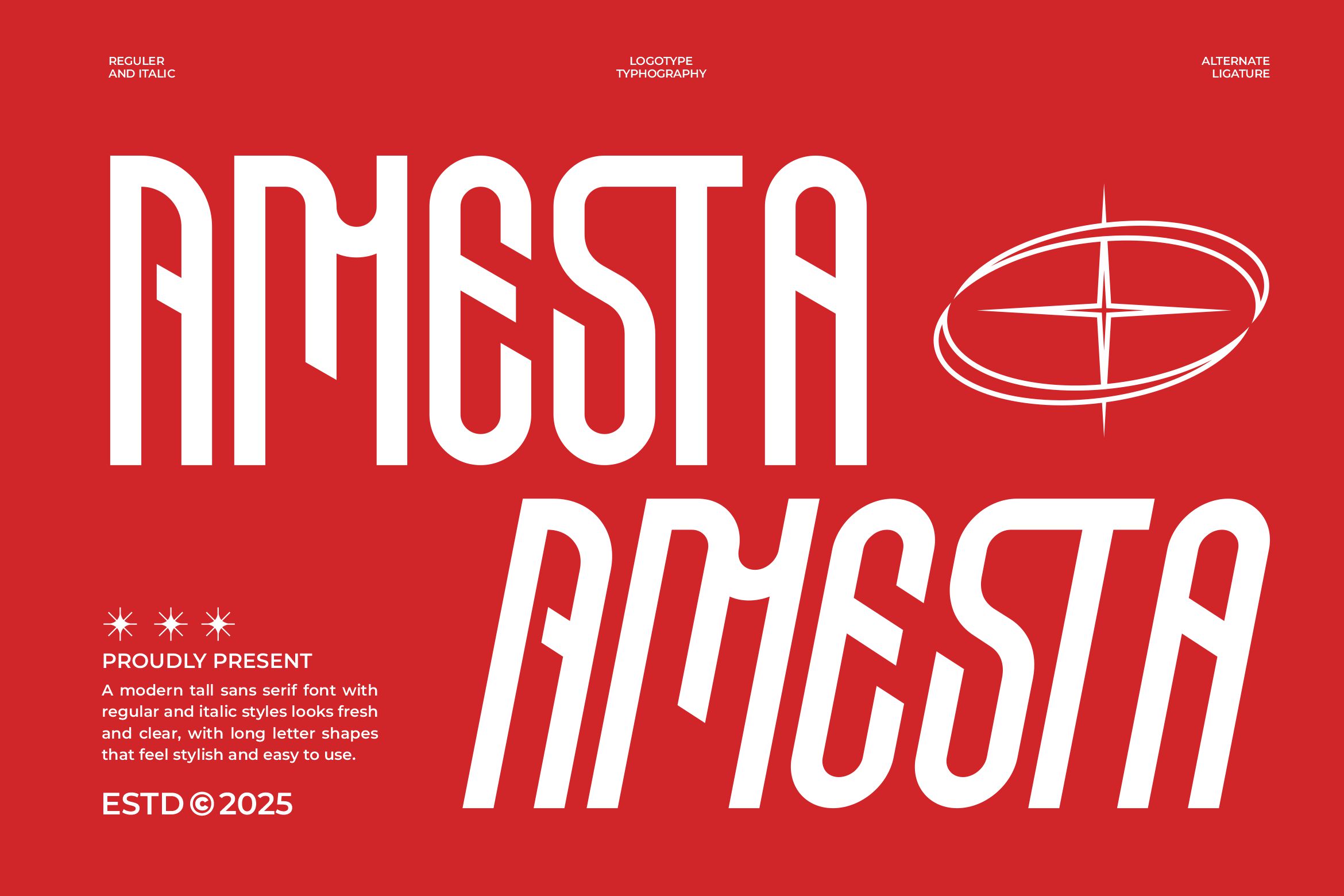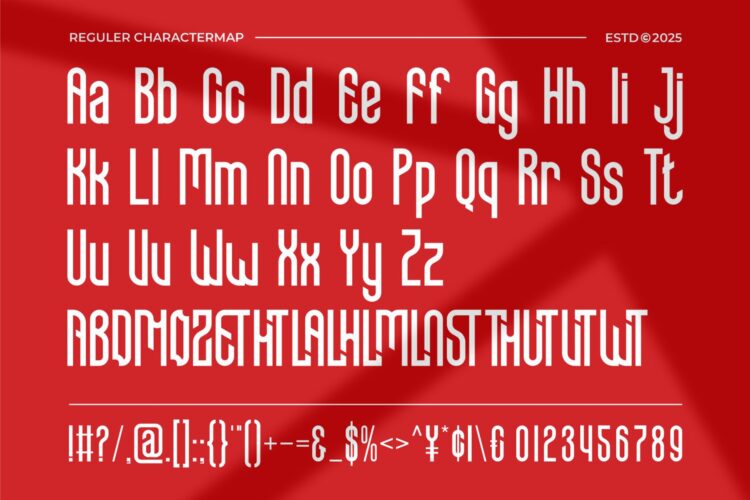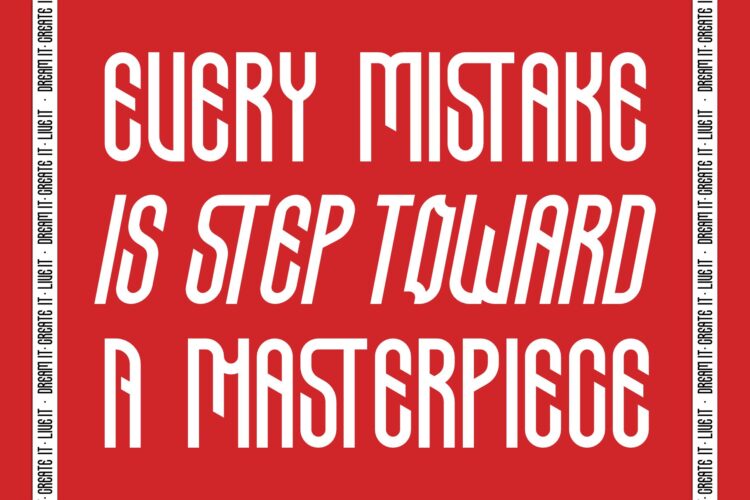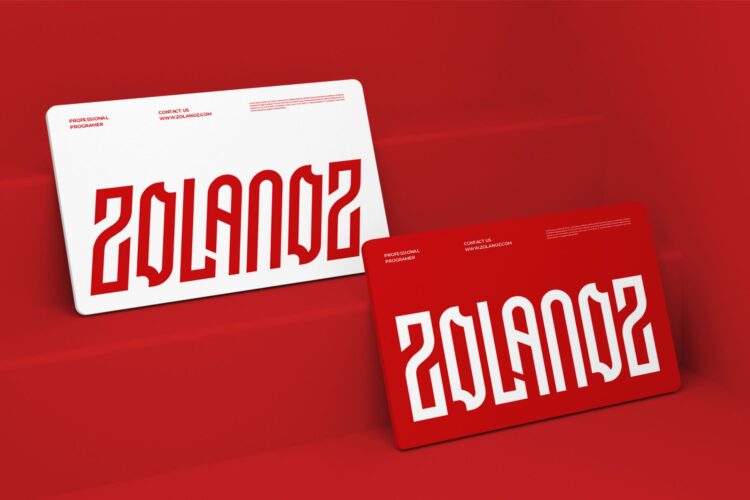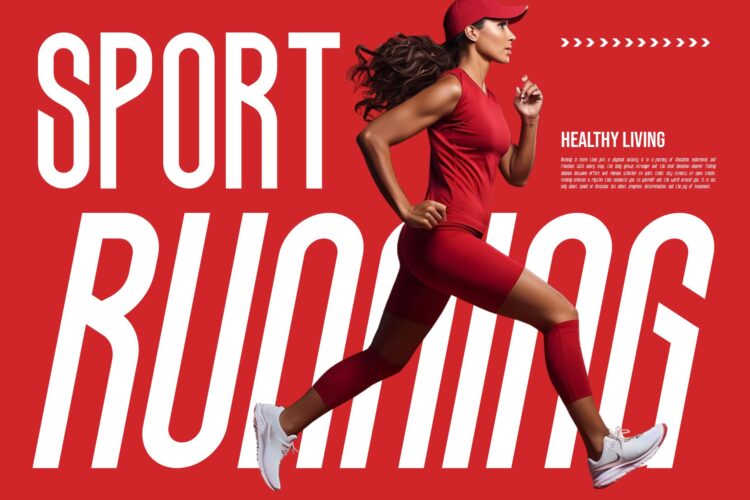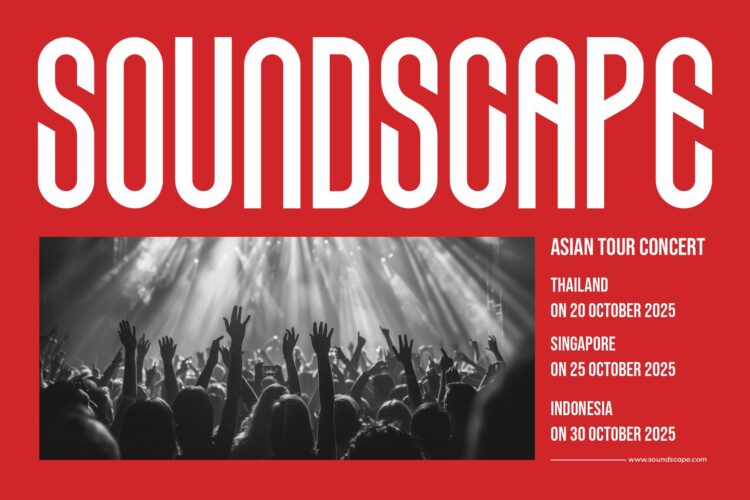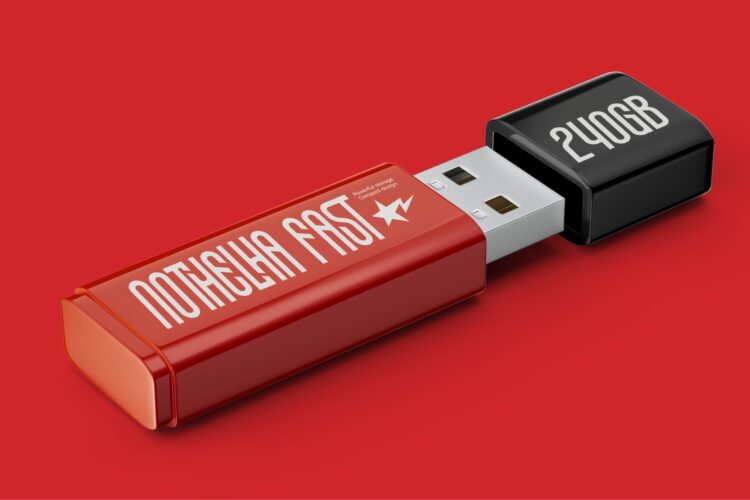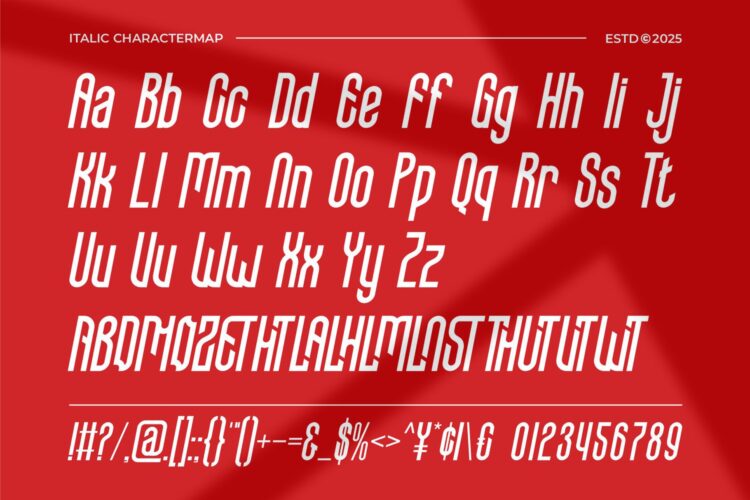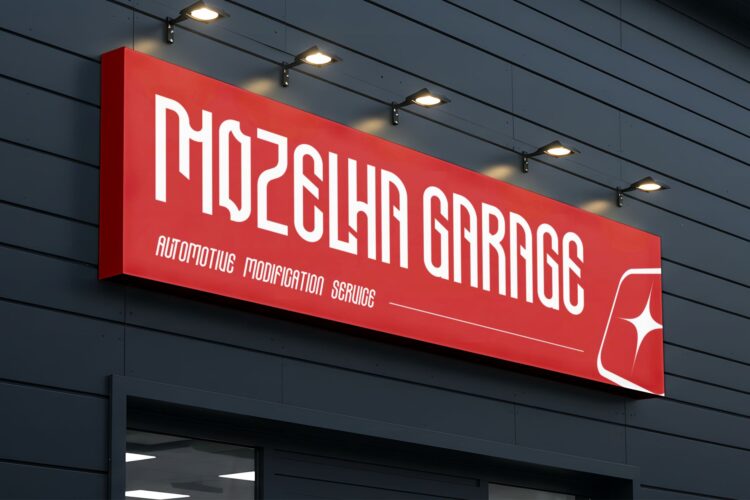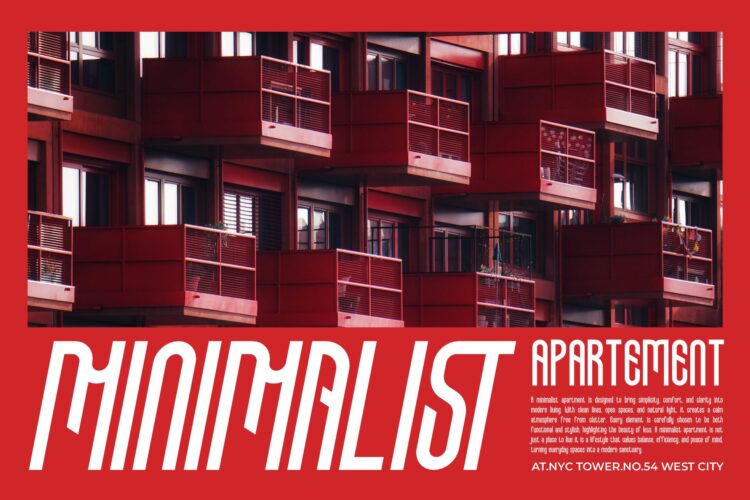
Amesta Regular
Amesta Italic
Amesta Sans Serif is a modern and futuristic font type for all branding and logo designs. This Regular and Italic sans serif font has a beautiful character. This font is suitable for invitation card designs, cool logos, movie titles, movie names, business cards, book titles, brand names, and various other designs. Amesta Serif is a smooth sans serif font that exudes sophistication and the moment. Its stylish alternates make this font a perfect partner for any project.
– Alternates & Ligatures
Amesta || Modern Sans Serif Font